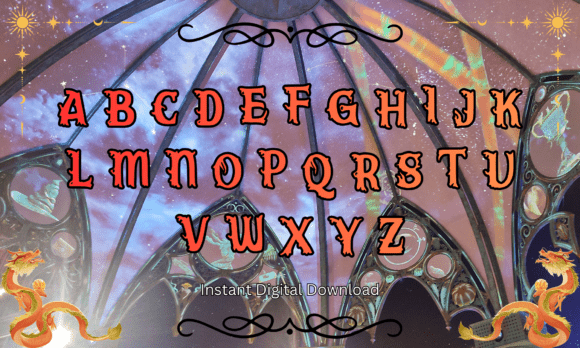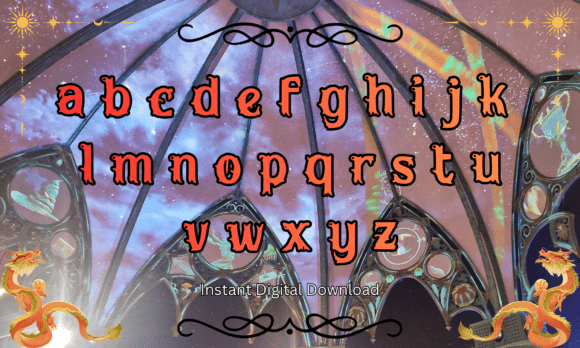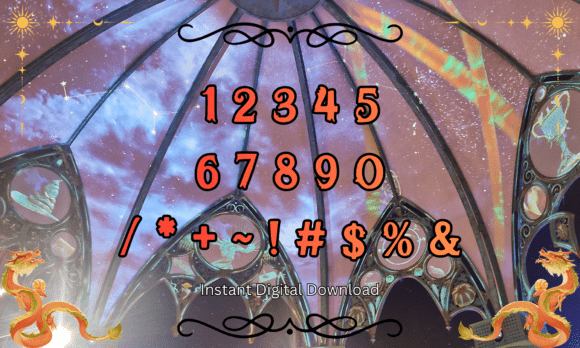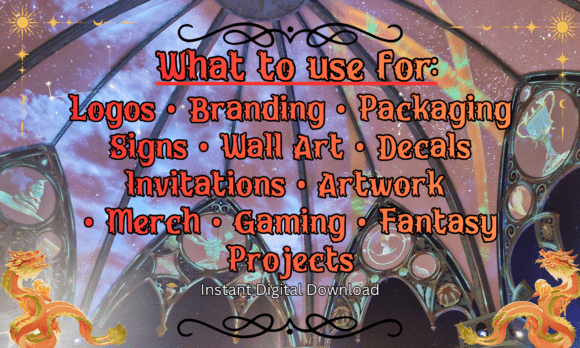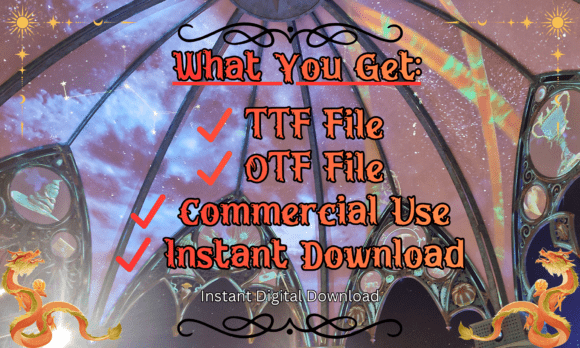
Introduction to Celestial Dragon Font
Bring bold, mystical energy to your designs with Celestial Dragon, a fantasy-inspired display font featuring rugged edges, powerful curves, and a magical celestial aesthetic ✨ Perfect for creators who want epic, fantasy-themed, or statement designs that stand out instantly.